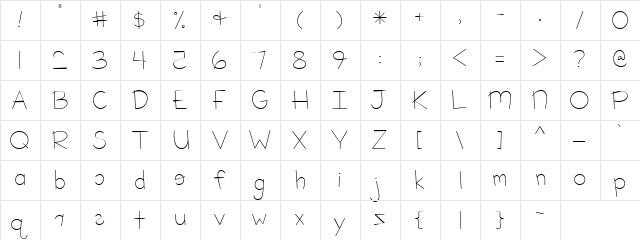
CK Kindergarden Regular
Design Context for CK Kindergarden Typeface
CK Kindergarden is a composed and adaptable typeface that performs quietly and consistently across a wide range of design contexts.